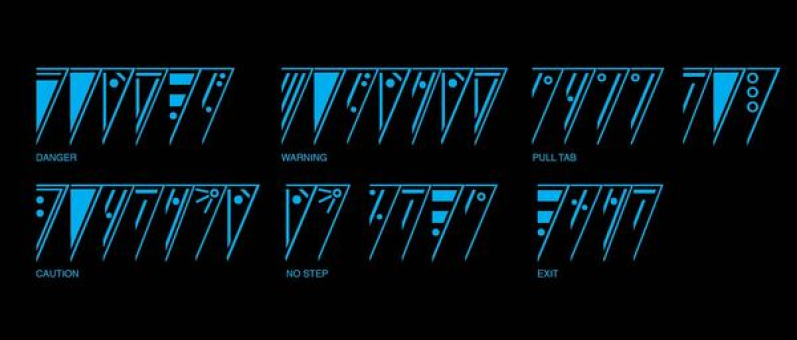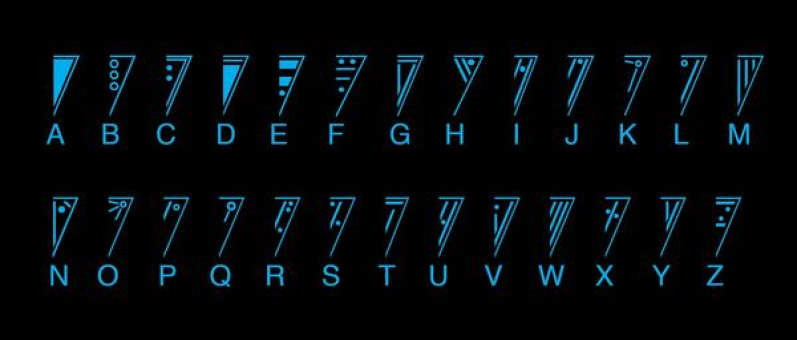
This typeface was designed for concept artist to have a more consistent alien writing on there art. Also makes the writing more believable because it is consisten. Lastly its just easier to use all you have to do is type.